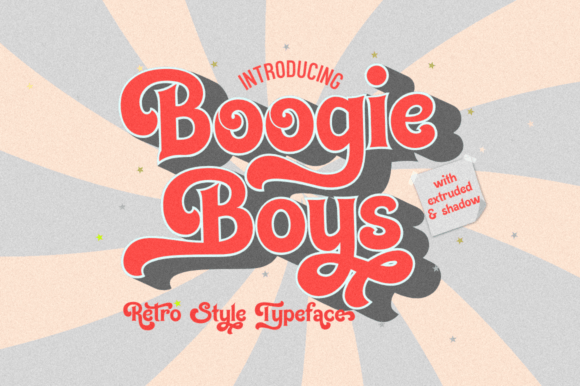
The Boogie Boys Font: A Retro Revival for Creative Projects
I’ll never forget the design project that led me to discover the Boogie Boys font. I was working on a vintage-inspired poster for a music festival, and I was struggling to find the perfect font to capture the playful, energetic vibe of the event. That’s when I stumbled upon Boogie Boys, a retro-styled display font that instantly became the star of the show. In this article, I’ll share my experience with Boogie Boys, its features, and how to make the most of this amazing font.
First Impressions: A Love Letter to Boogie Boys
Boogie Boys is more than just a font – it’s a design statement. With its unique blend of serif and dynamic swashes, this font is perfect for creative projects that need a stylish and expressive touch. Here are some things I love about Boogie Boys:
- ✨ Retro charm: Boogie Boys has a distinct retro feel that’s perfect for vintage-inspired designs, music festivals, or any project that needs a dash of nostalgia.
- ✅ Three-layer design: The font comes with three layers, making it easy to create a 3D effect that adds depth and dimension to your designs.
- 🎉 Playful and expressive: Boogie Boys is all about having fun with design. Its dynamic swashes and stylistic alternates make it perfect for inspirational wall posters, t-shirts, stickers, or brand identity.
The Honest Review: Not Perfect, But Close
While Boogie Boys is an amazing font, it’s not without its quirks. Here are a few things to keep in mind:
- 🤔 Legibility at small sizes: Boogie Boys is a display font, and as such, it can be a bit tricky to read at small sizes. Be sure to test it out at different sizes to ensure it works for your project.
- ⚠️ Limited use cases: While Boogie Boys is incredibly versatile, it’s not the best choice for body text or long-form content. Stick to headlines, titles, and short phrases for the best results.
One of the most exciting features of Boogie Boys is its OpenType features and glyphs. These allow you to customize your text and add unique touches to your designs. Here are a few tips for exploring these features:
- Stylistic alternates: Boogie Boys comes with a range of stylistic alternates that allow you to swap out letters and symbols for different versions.
- Swashes and flourishes: The font includes dynamic swashes and flourishes that add a touch of elegance and sophistication to your text.
- Glyphs and ornaments: Boogie Boys also includes a range of glyphs and ornaments that you can use to add texture and interest to your designs.
Boogie Boys was designed with one goal in mind: to create a font that captures the playful, energetic spirit of the 80s and 90s. The designer, [designer name], drew inspiration from classic rock posters, vinyl records, and vintage typography. The result is a font that’s equal parts nostalgic and modern, with a unique personality that’s hard to find in other fonts.
- Q: Is Boogie Boys suitable for body text?
- A: No, Boogie Boys is a display font and is best suited for headlines, titles, and short phrases.